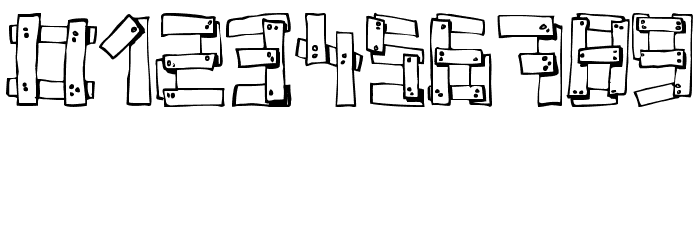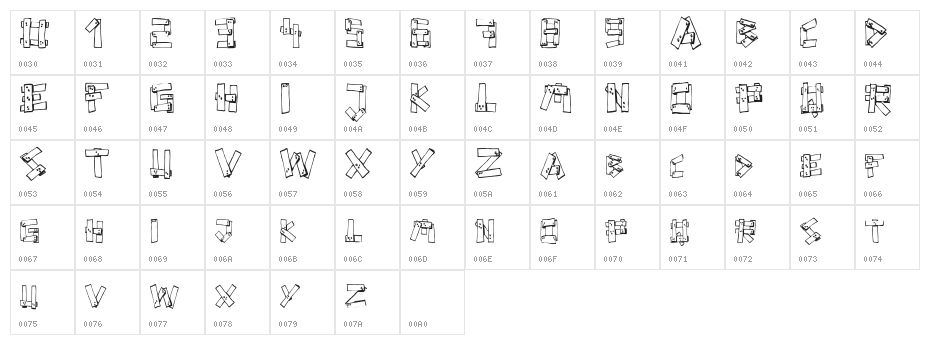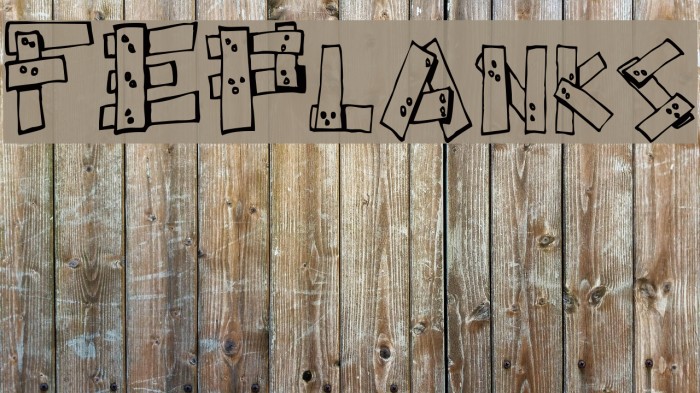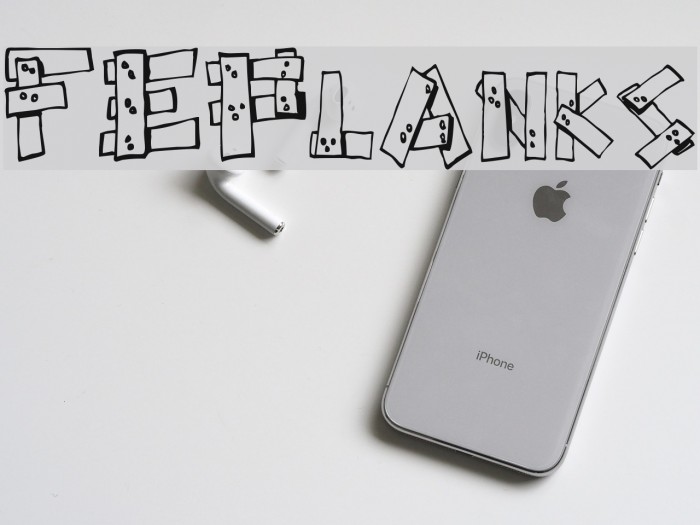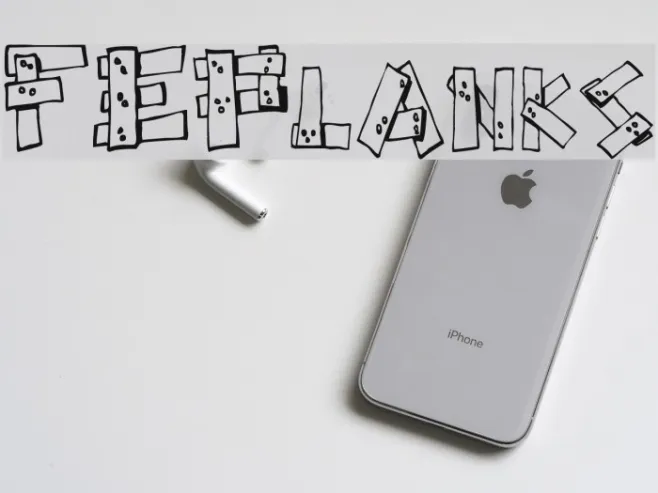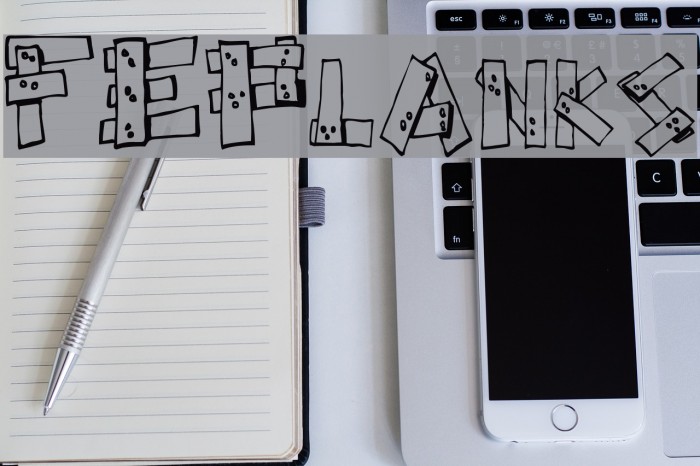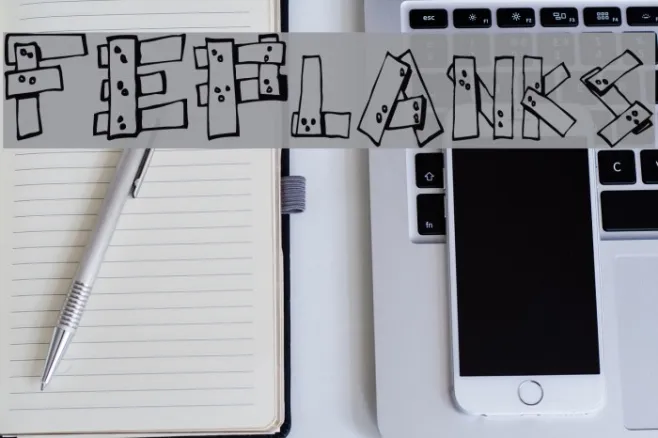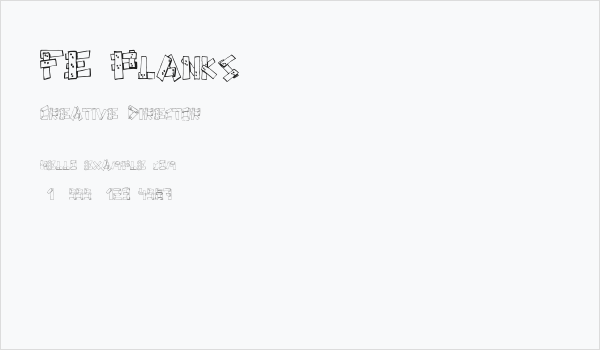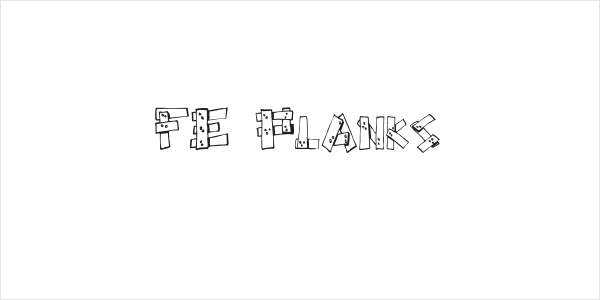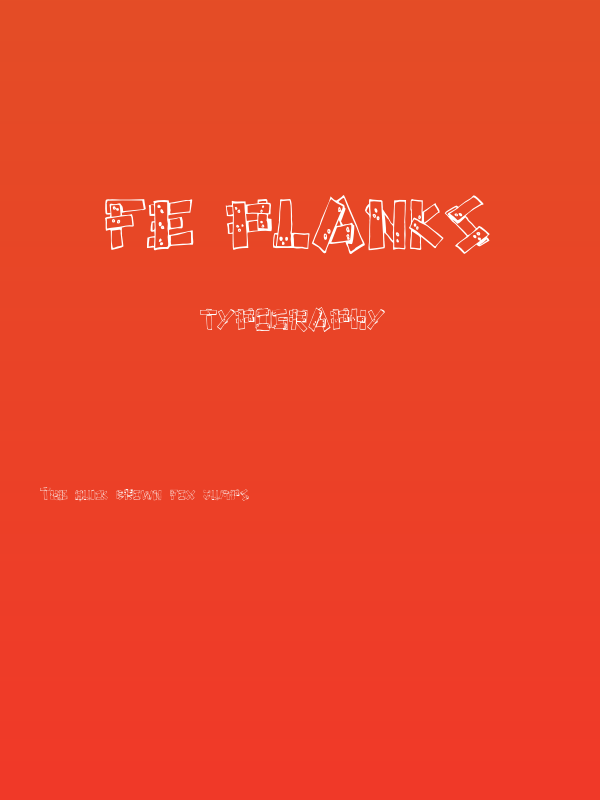
FE-Planks Font
FE-Planks Description
This font features a playful and creative design, resembling planks of wood assembled to form each character. The letters are constructed with a hand-drawn, cartoonish style, incorporating screws and nails as decorative elements. The overall appearance is whimsical and informal, making it ideal for projects that require a fun and unique aesthetic. The characters are bold and have a consistent thickness, with a slightly irregular shape that adds to the handmade feel. This font is perfect for eye-catching headlines, posters, or any design that aims to convey a sense of creativity and playfulness.
| Overall Style | Whimsical, Creative |
| Use Case | Headlines, Posters, Creative Branding |
| Proposed Projects | Great for children's book covers, playful posters, DIY-themed graphics, and creative branding. |